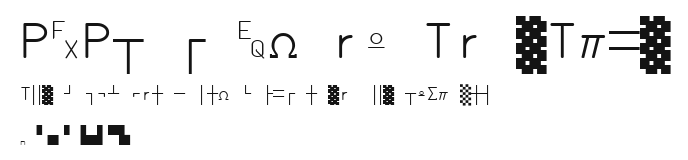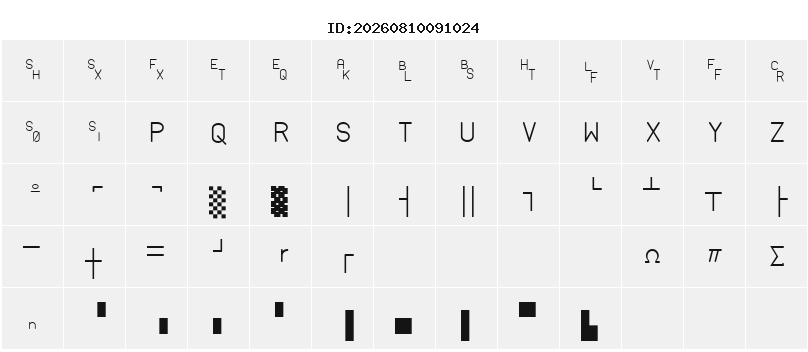
PCPlus Extra TrueType Preview
• Font Name: PCPlus Extra TrueType
• Full Font Name: PCPlus Extra TrueType
About PCPlus Extra TrueType.ttf
PCPlus Extra TrueType.ttf is a modern, elegant sans-serif font designed for ultimate readability and visual harmony. Perfect for branding, headlines, web design, and print materials.